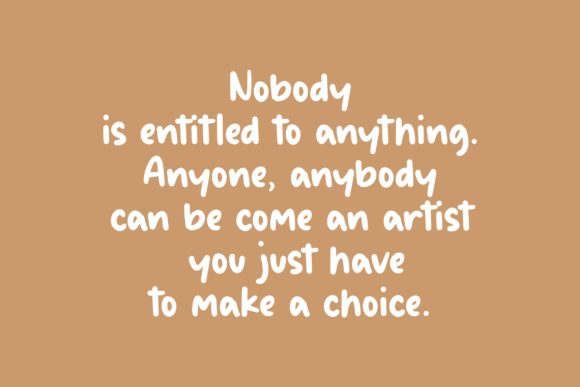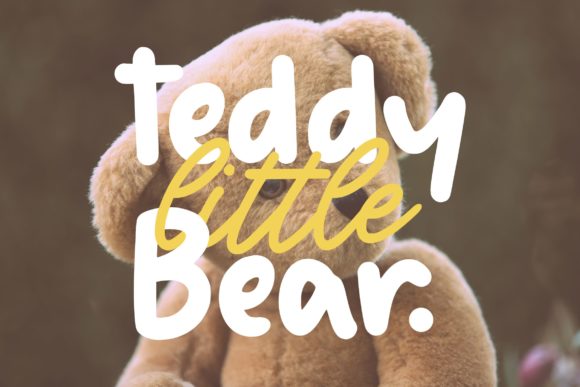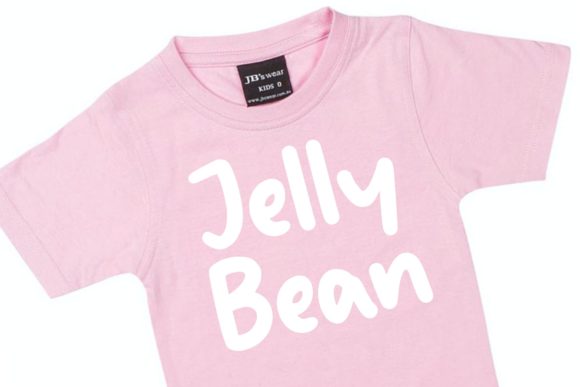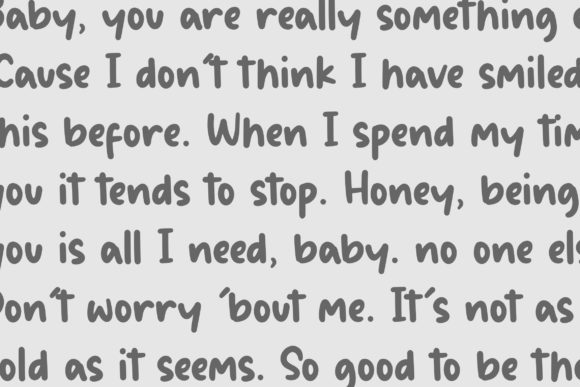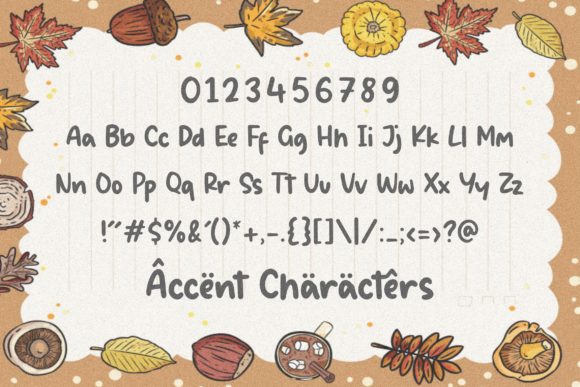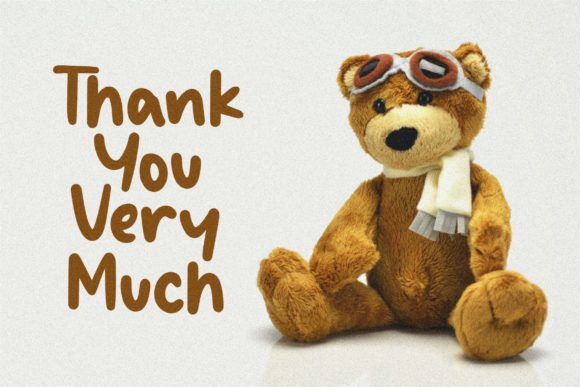
Introducing Goldie Boxing Font: Add a Touch of Autumn to Your Designs
Are you looking for a bold and eye-catching font to elevate your designs? Look no further than Goldie Boxing Font, a stunning display font with an autumn theme that’s sure to make your creations come alive! In this article, we’ll dive into the features and benefits of Goldie Boxing Font, and explore how you can use it to add a touch of warmth and coziness to your designs.
What is Goldie Boxing Font?
Goldie Boxing Font is a bold display font that’s perfect for designers and crafters looking to add a touch of autumn to their work. With its chunky lettered design and warm, golden tones, this font is sure to evoke the feeling of crisp autumn leaves and cozy nights by the fire. Whether you’re creating invitations, posters, or social media graphics, Goldie Boxing Font is the perfect choice for adding a seasonal touch to your designs.
Key Features of Goldie Boxing Font
- Bold and eye-catching design: Goldie Boxing Font features a chunky, bold design that’s sure to grab attention.
- Autumn theme: With its warm, golden tones and leaf-inspired design, Goldie Boxing Font is the perfect choice for autumn-themed designs.
- Easy to read: Despite its bold design, Goldie Boxing Font is easy to read, making it perfect for use in a variety of design applications.
- Versatile: Goldie Boxing Font can be used in a variety of design applications, from invitations and posters to social media graphics and more.
How to Use Goldie Boxing Font in Your Designs
Goldie Boxing Font is easy to use and can be incorporated into a variety of design applications. Here are a few ideas to get you started:
- Invitations: Use Goldie Boxing Font to create eye-catching invitations for autumn-themed parties and events.
- Posters: Add a touch of autumn to your posters with Goldie Boxing Font, perfect for promoting seasonal products or services.
- Social media graphics: Use Goldie Boxing Font to create engaging social media graphics that showcase your brand’s personality.
- Crafting projects: Goldie Boxing Font is also perfect for use in crafting projects, such as scrapbooking and card making.
Benefits of Using Goldie Boxing Font
There are many benefits to using Goldie Boxing Font in your designs. Here are a few:
- Adds a touch of autumn: Goldie Boxing Font is the perfect way to add a touch of autumn to your designs, evoking the feeling of warm, cozy nights by the fire.
- Increases engagement: The bold, eye-catching design of Goldie Boxing Font is sure to grab attention and increase engagement with your audience.
- Easy to use: Goldie Boxing Font is easy to use and can be incorporated into a variety of design applications.
- Versatile: Goldie Boxing Font can be used in a variety of design applications, making it a great addition to your font library.
Tips and Tricks for Using Goldie Boxing Font
Here are a few tips and tricks for using Goldie Boxing Font in your designs:
- Use it sparingly: While Goldie Boxing Font is bold and eye-catching, it’s best to use it sparingly to avoid overwhelming your design.
- Pair it with complementary fonts: Pair Goldie Boxing Font with complementary fonts to create a visually appealing design.
- Experiment with colors: While Goldie Boxing Font features warm, golden tones, feel free to experiment with different colors to find the perfect combination for your design.
Goldie Boxing Font is a bold and eye-catching display font with an autumn theme that’s sure to make your designs come alive. With its chunky lettered design and warm, golden tones, this font is perfect for adding a touch of warmth and coziness to your designs. Whether you’re a designer or crafter, Goldie Boxing Font is a great addition to your font library. So why wait? Download Goldie Boxing Font today and start creating stunning designs that showcase your creativity and style!